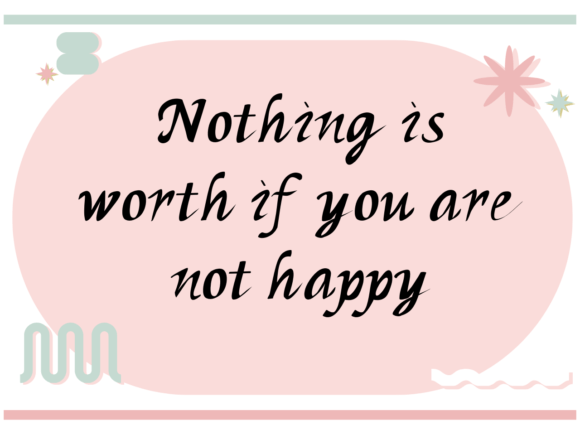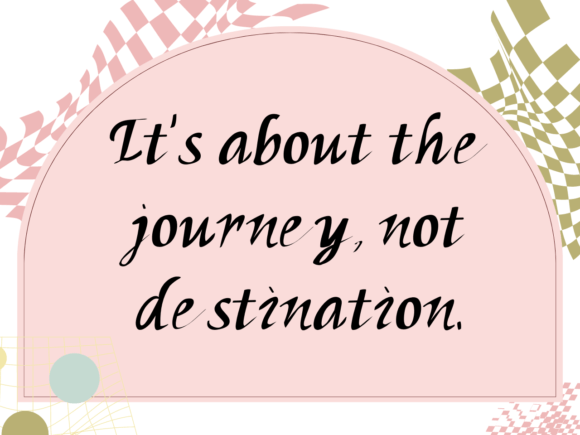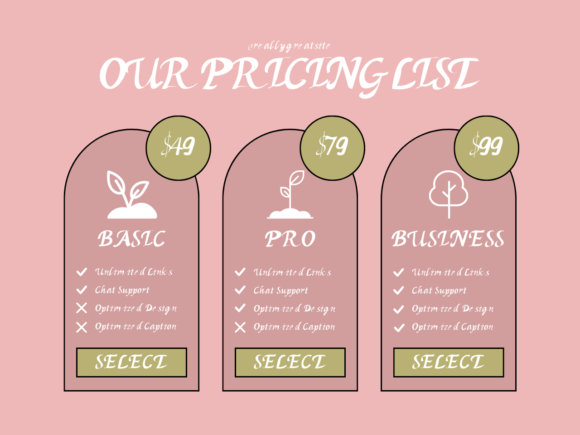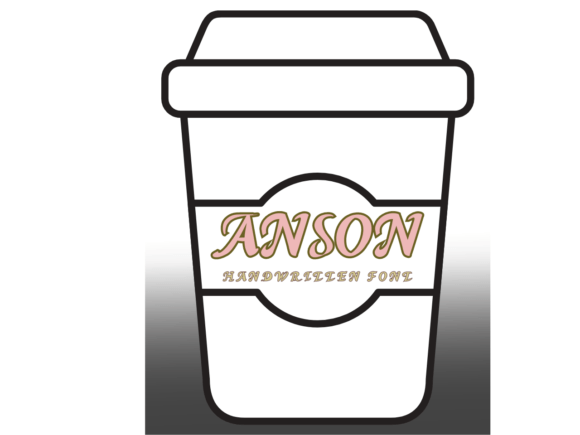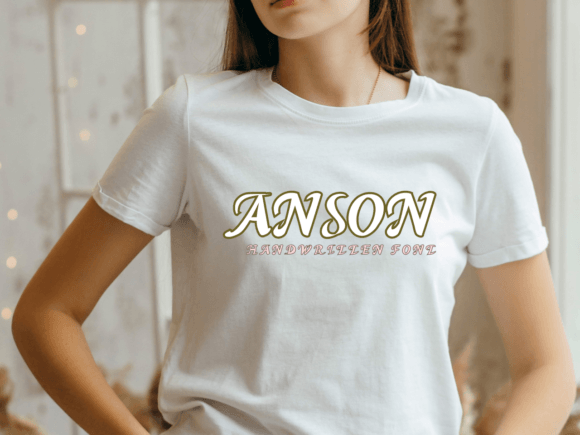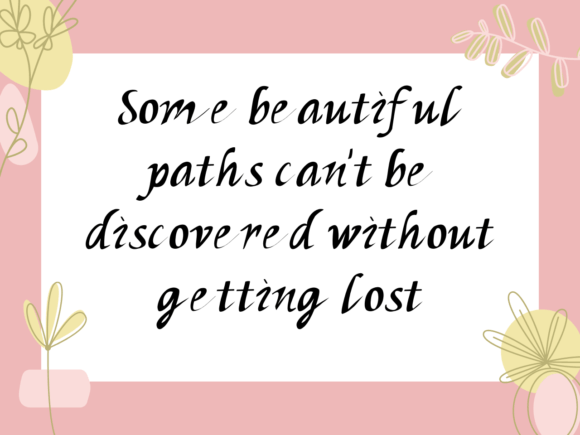
Discover the Charm of Anson Font: A Sweet and Friendly Handwritten Delight
Are you on the hunt for a font that can add a touch of warmth and personality to your designs? Look no further than Anson Font, a sweet and friendly handwritten font that’s perfect for a wide range of creative projects. With its natural and unique style, Anson Font is incredibly versatile, making it an excellent choice for designers and crafters alike.
The Unique Characteristics of Anson Font
Anson Font boasts a distinctive handwritten style that’s both elegant and approachable. Its flowing lines and gentle curves give it a soft, friendly feel that’s sure to capture the hearts of your audience. Whether you’re working on a branding project, creating social media graphics, or designing invitations and cards, Anson Font is the perfect choice for adding a personal touch.
What Makes Anson Font So Versatile?
The beauty of Anson Font lies in its versatility. Its natural and unique style makes it incredibly fitting to a large pool of designs, from modern and trendy to vintage and rustic. Whether you’re creating:
- Invitations, cards, and party decorations
- Blog posts, articles, and website content
- Marketing materials, such as brochures and flyers
Anson Font is the perfect choice. Its friendly and approachable style ensures that your designs will resonate with your audience, regardless of the context.
The Benefits of Using Anson Font
So, why should you choose Anson Font for your next design project? Here are just a few benefits of using this amazing font:
- Easy to read: Anson Font is clear and legible, making it perfect for body text and headlines.
- Highly versatile: Anson Font can be used in a wide range of designs, from digital to print.
- Unique and distinctive: Anson Font has a one-of-a-kind style that will set your designs apart from the crowd.
- Time-saving: With Anson Font, you can create stunning designs in no time, thanks to its ease of use and flexibility.
Tips for Using Anson Font Effectively
To get the most out of Anson Font, here are a few tips to keep in mind:
- Pair it with contrasting fonts: Combine Anson Font with bold, geometric fonts for a striking contrast.
- Experiment with colors: Try pairing Anson Font with bright, bold colors or soft pastels for a unique look.
- Play with textures: Add depth and interest to your designs by combining Anson Font with textured backgrounds or overlays.
In conclusion, Anson Font is a sweet and friendly handwritten font that’s perfect for designers and crafters looking to add a touch of warmth and personality to their designs. With its natural and unique style, Anson Font is incredibly versatile, making it an excellent choice for a wide range of creative projects. So why wait? Give Anson Font a try today and discover the limitless possibilities it has to offer!
The only limit is your imagination! Let your creativity shine with Anson Font.